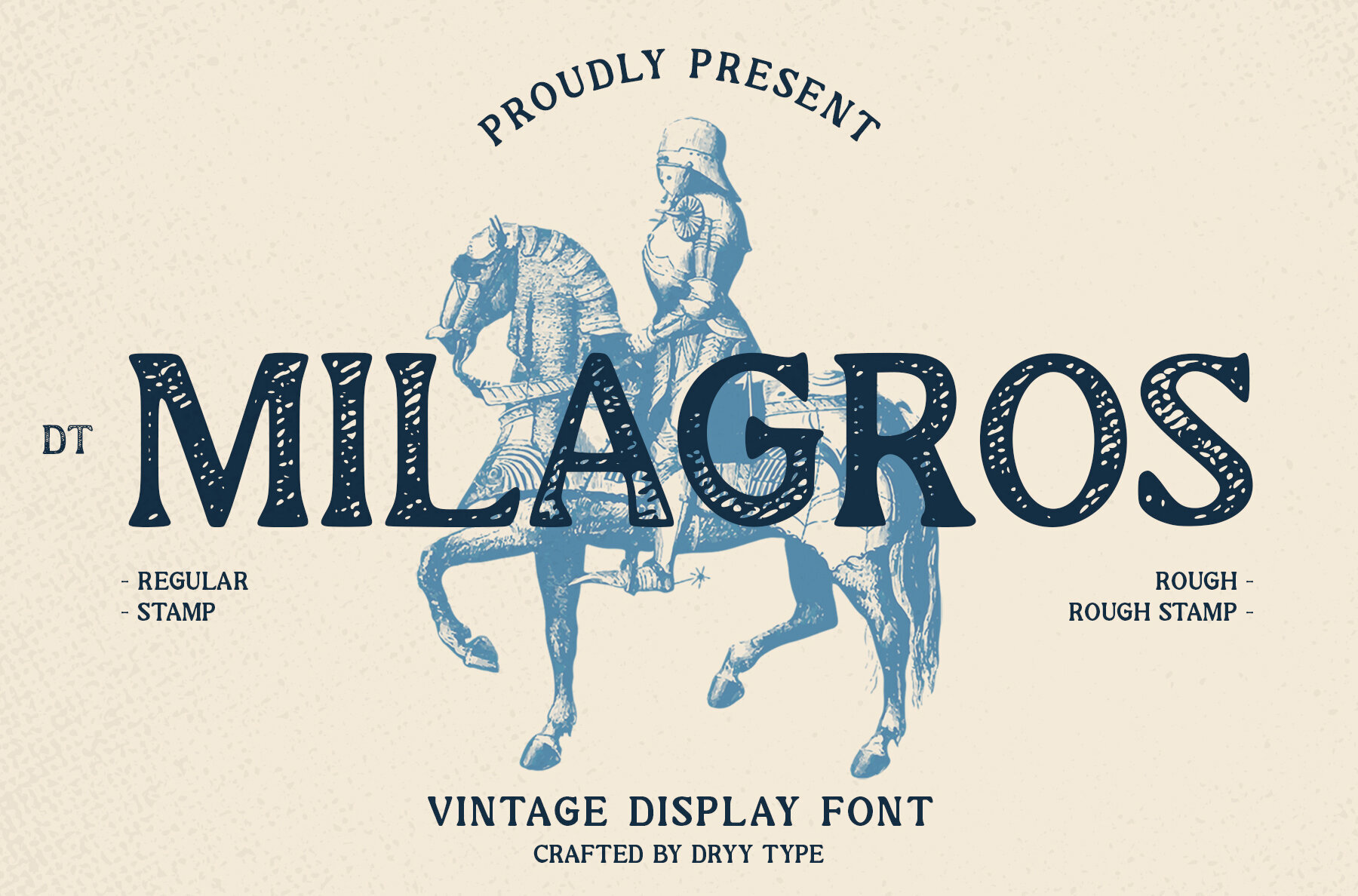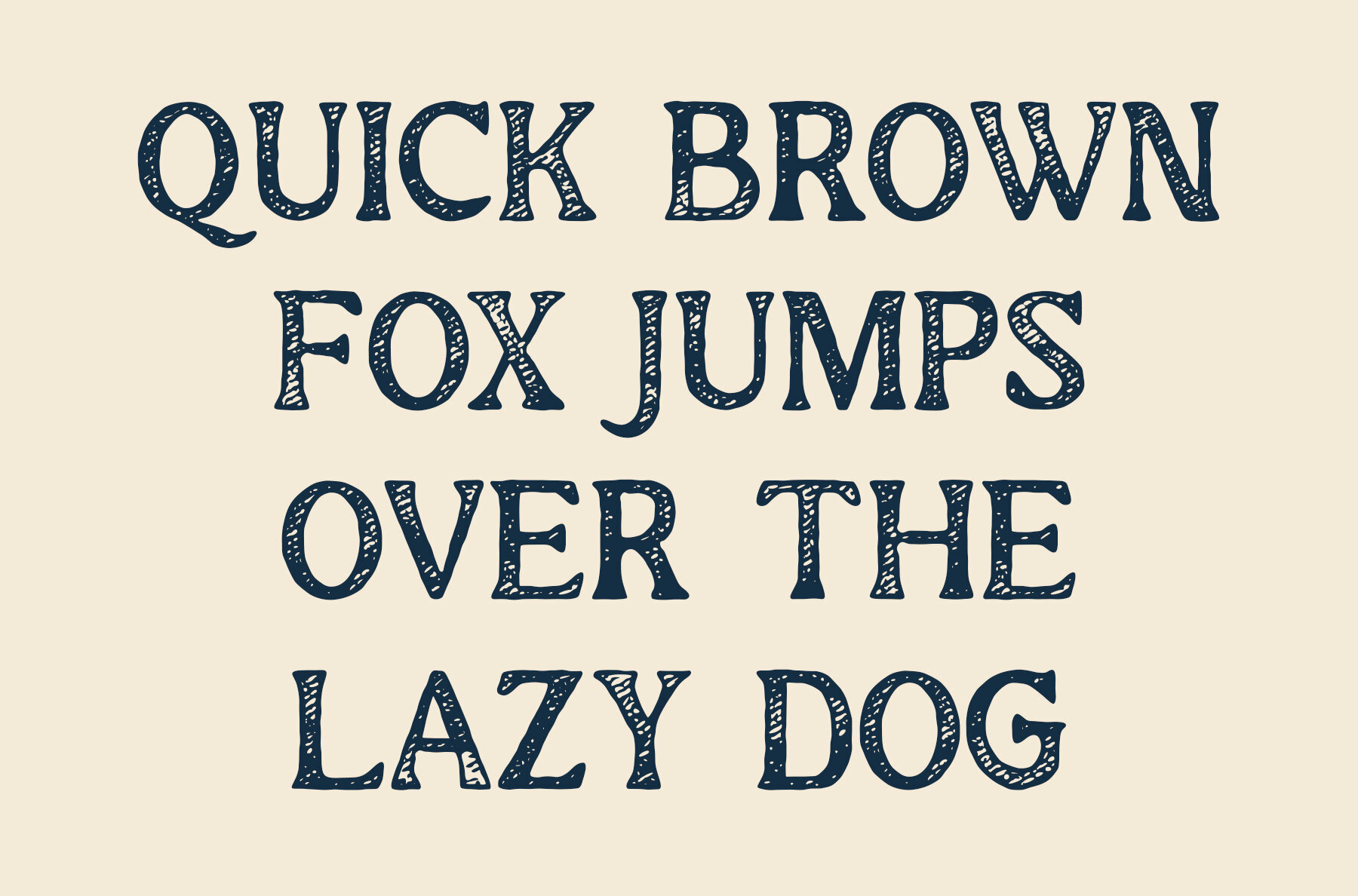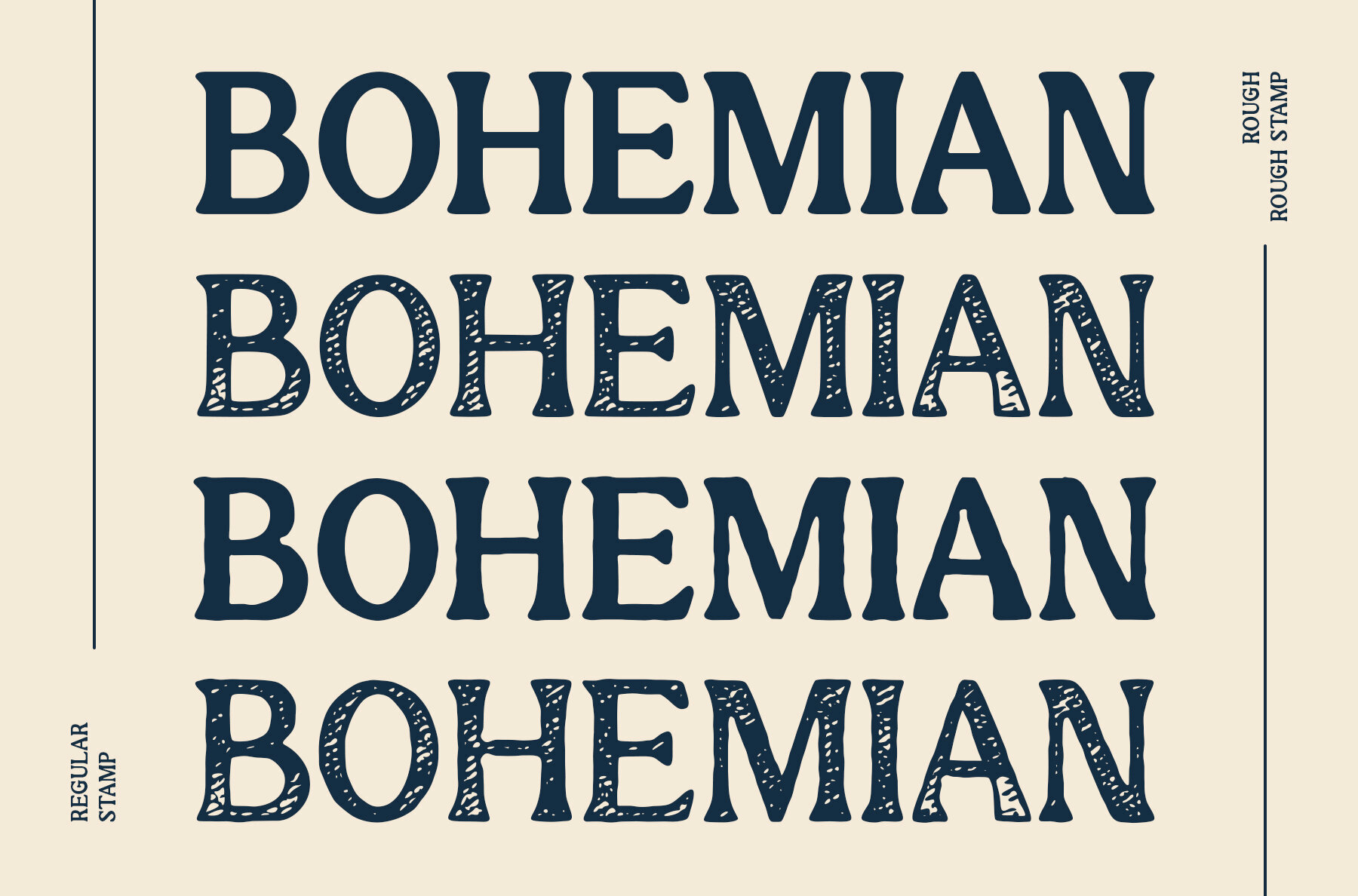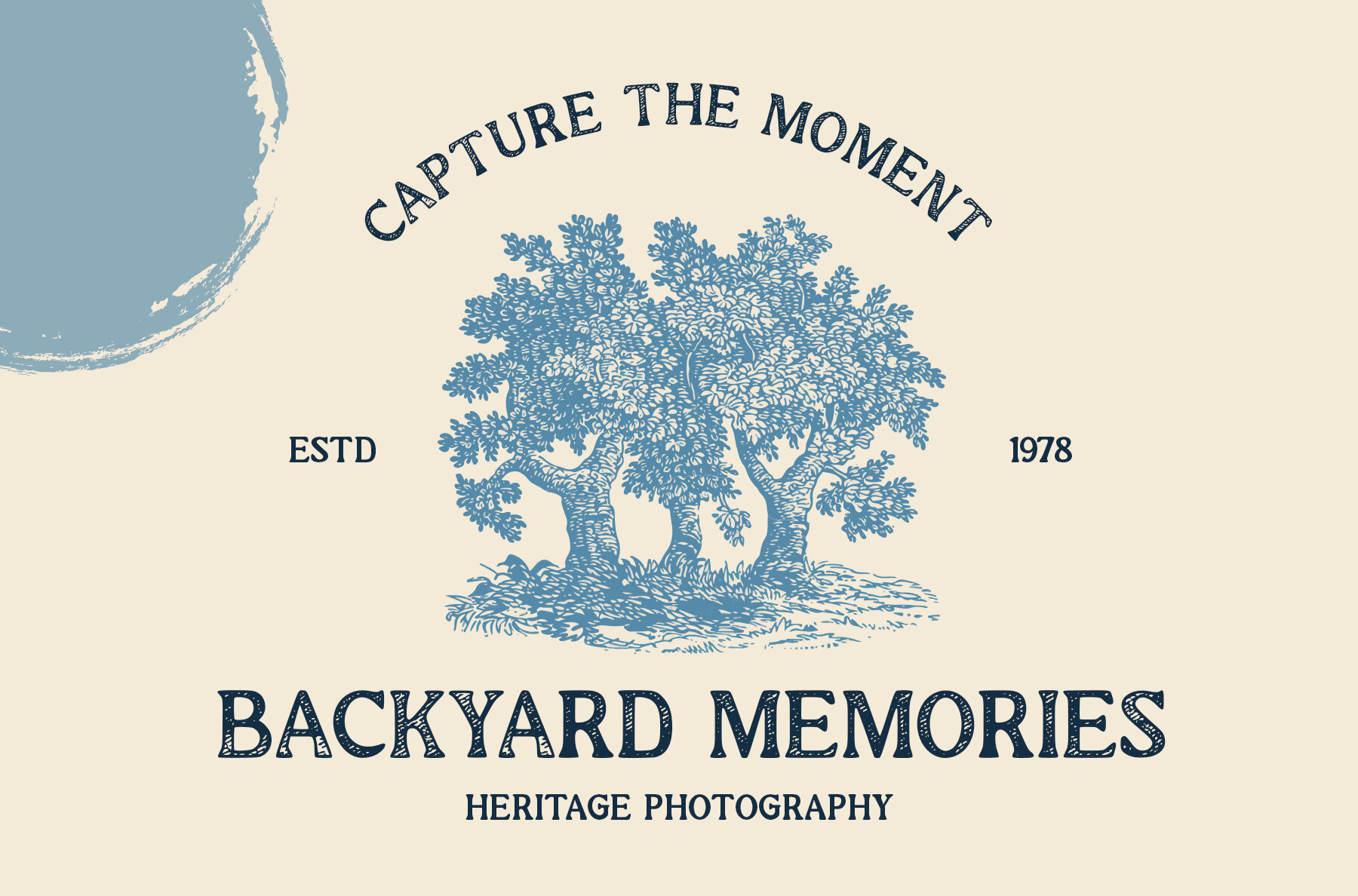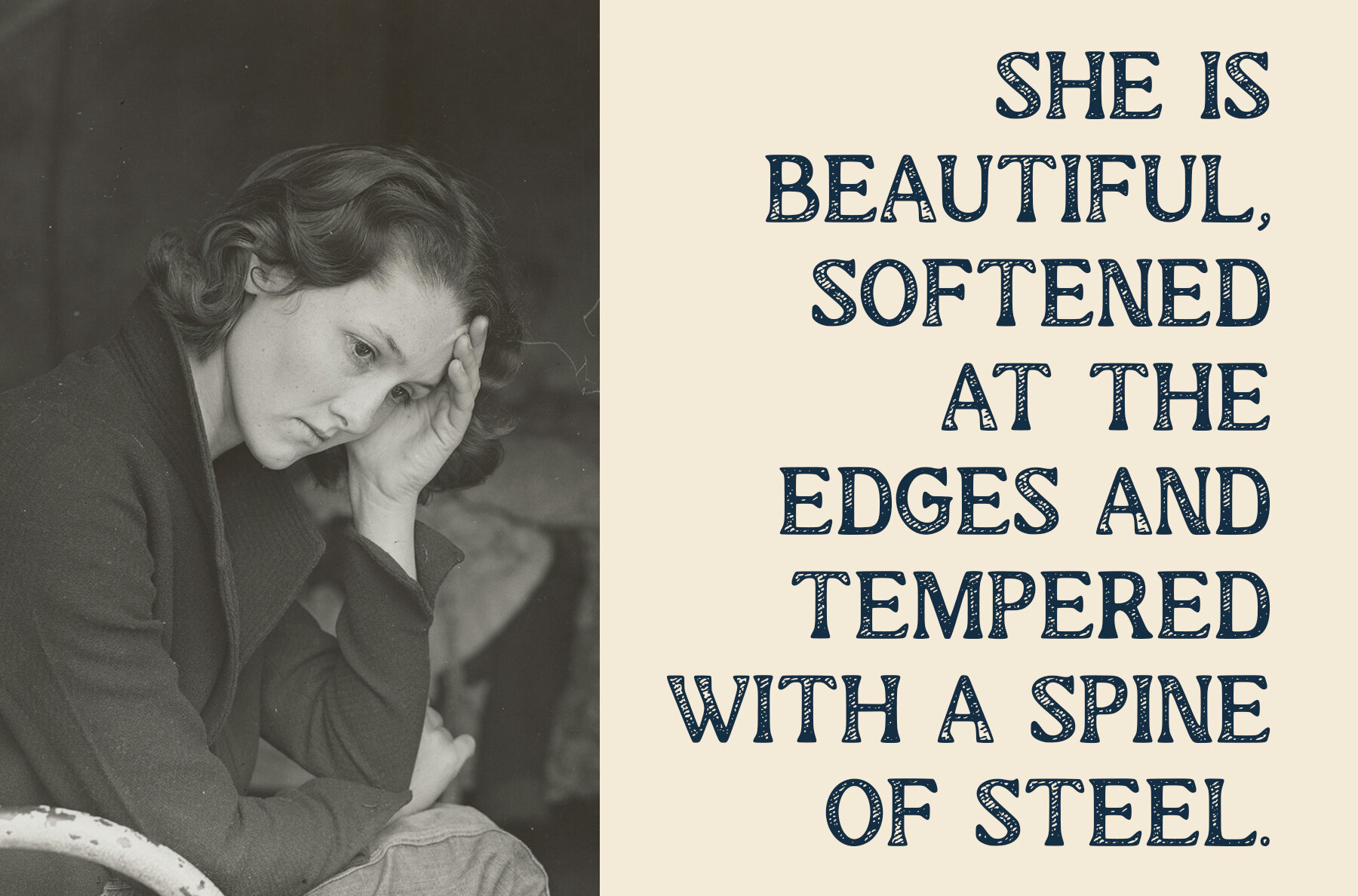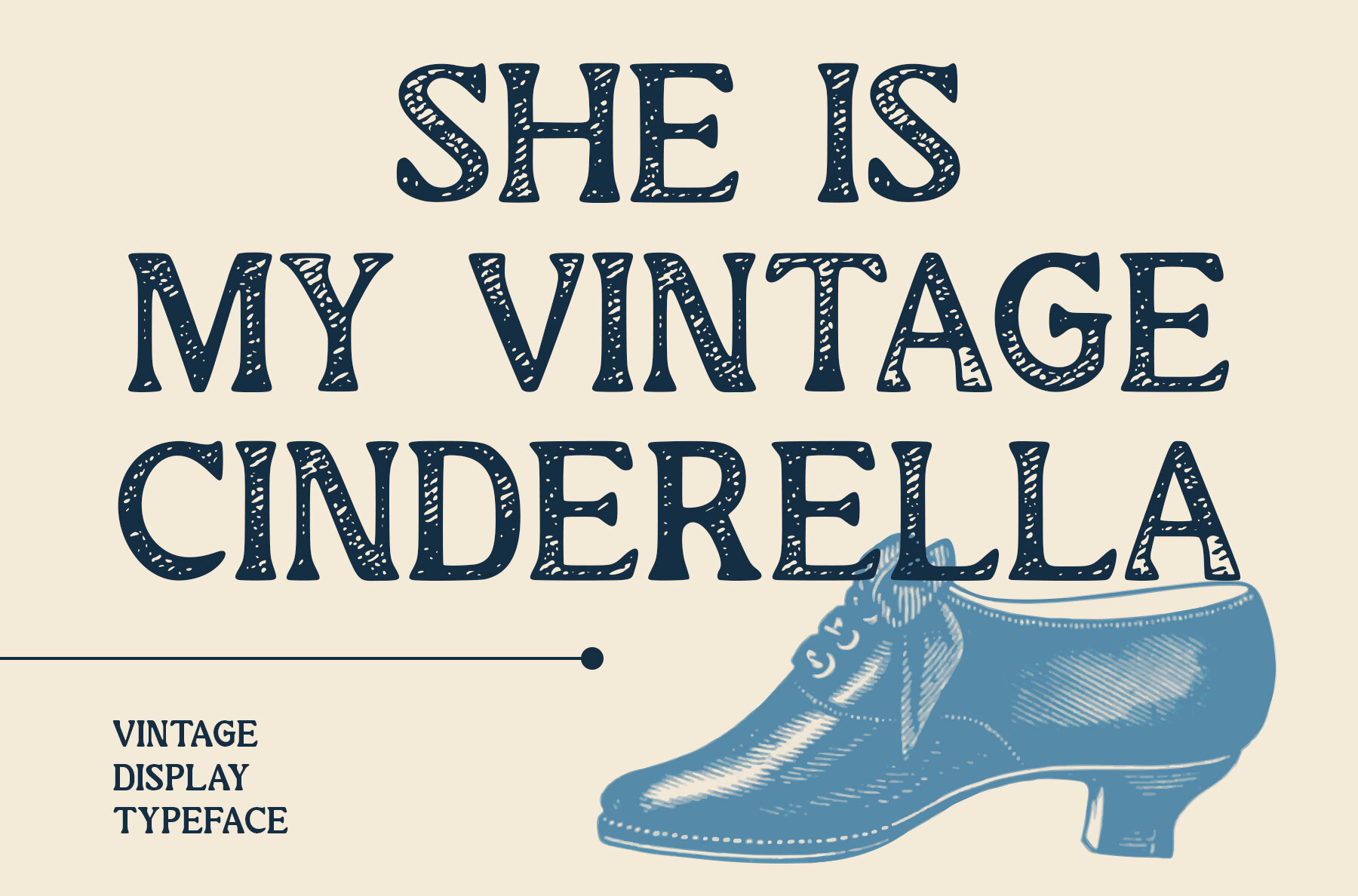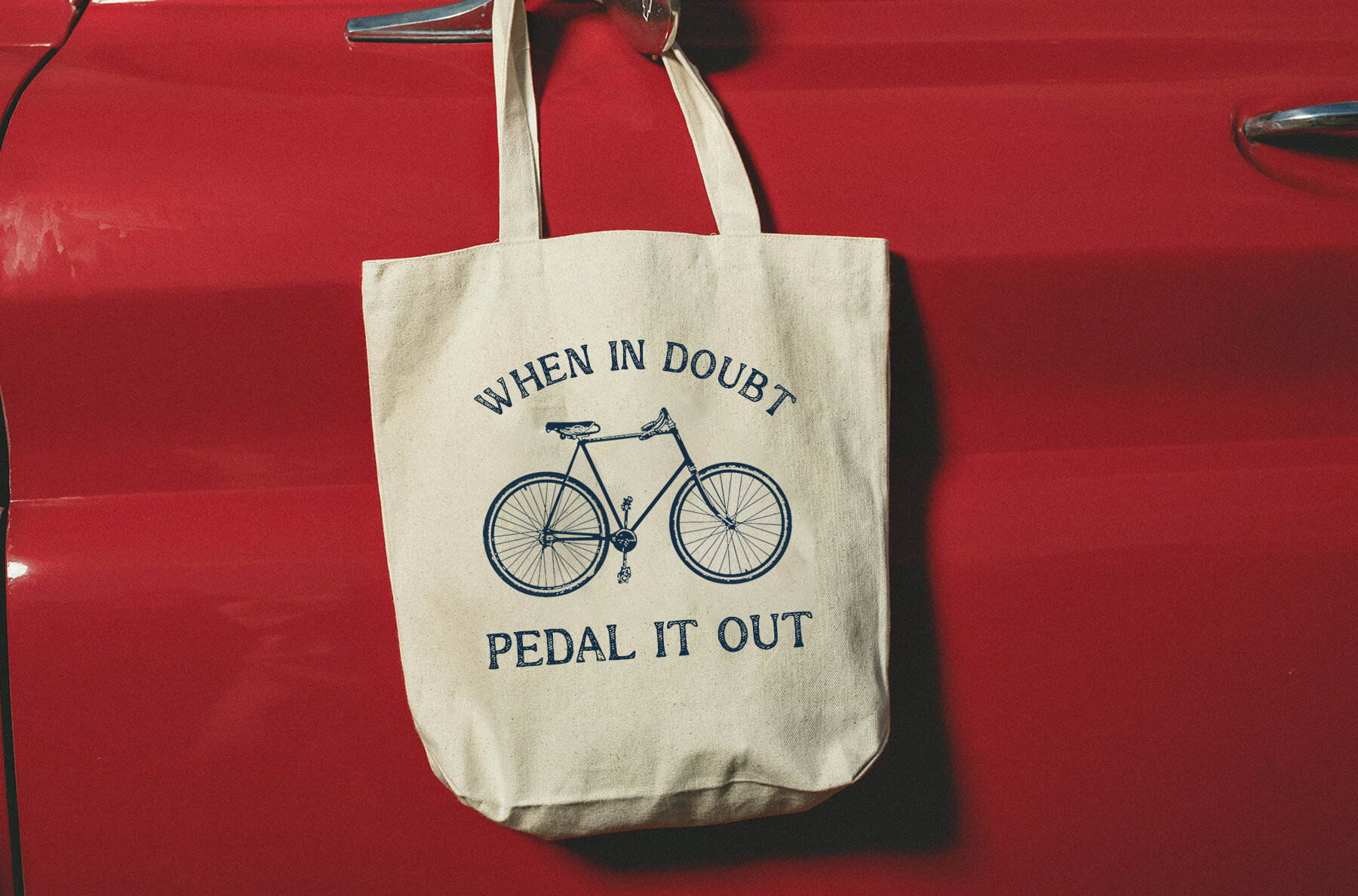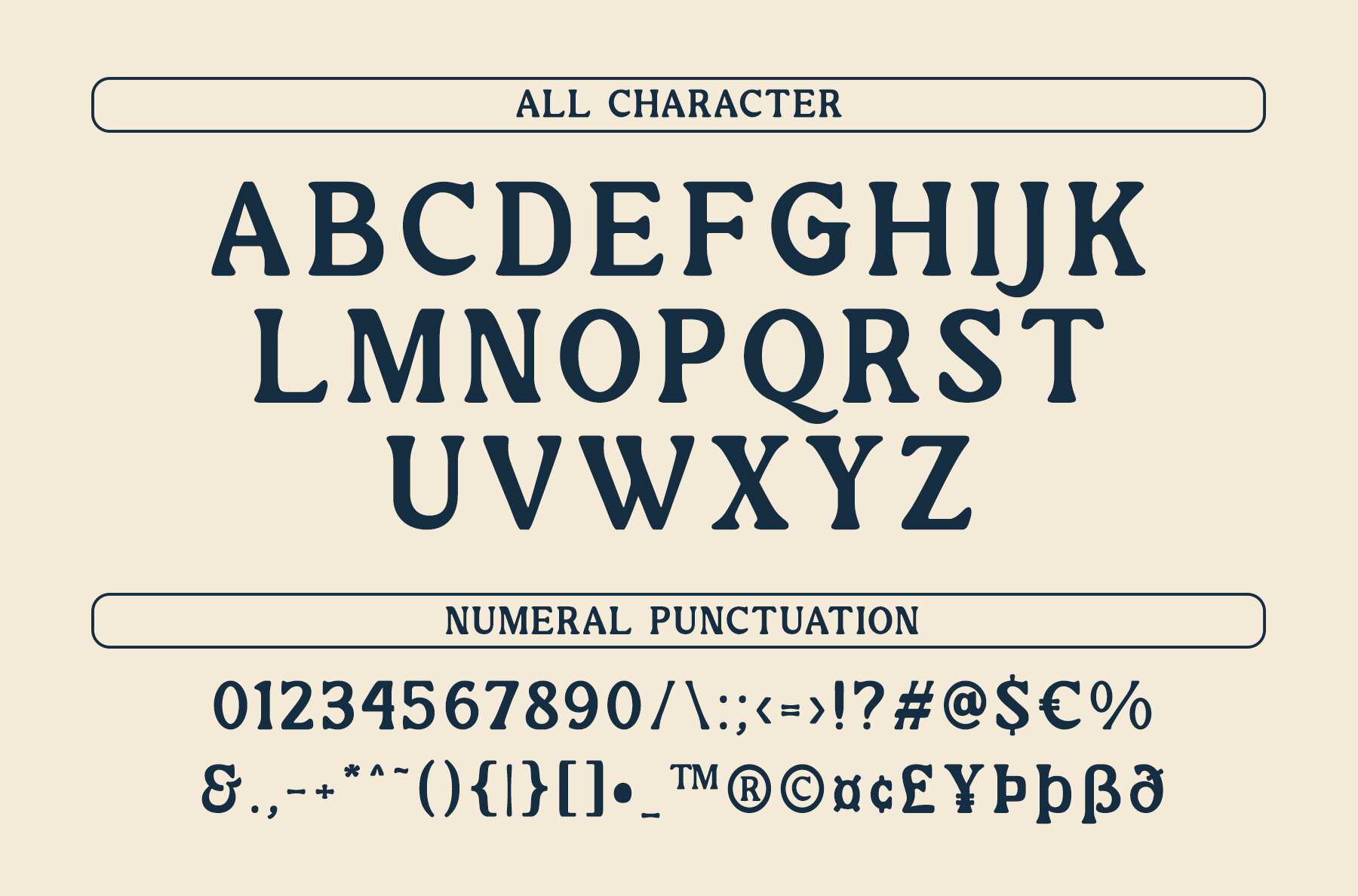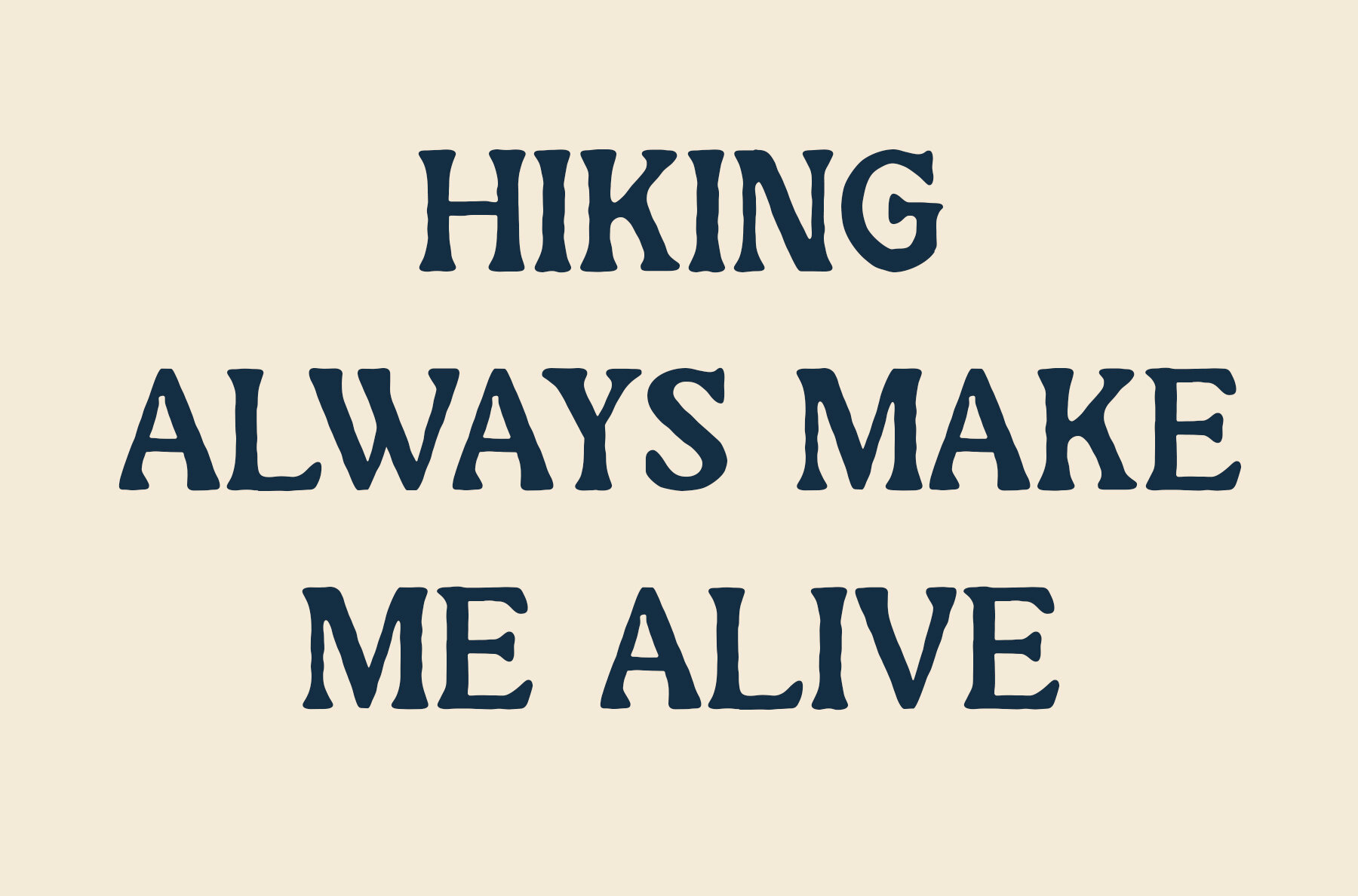
DT Milagros Font
DT Milagros Regular
DT Milagros Rough
DT Milagros Rough Stamp
DT Milagros Stamp
DT Milagros is a vintage display font designed to be both meaningful and versatile. Its classic style makes it a perfect fit for various design projects, bringing a unique touch to any creative idea. This font includes all caps, numerical characters, and multilingual support, ensuring it can be used in a wide range of applications.
DT Milagros comes in four distinct styles: Regular, Rough, Stamp, and Rough Stamp. Each style allows for different visual effects, giving designers the flexibility to match the font's look with the aesthetic of their project. Use DT Milagros to add a timeless, vintage feel to your designs.